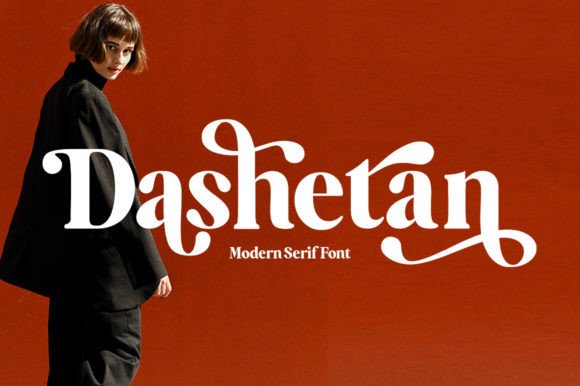
Introducing Dashetan Font: The Perfect Choice for Funeral Cards
Are you in search of a modern and fresh serif display font to add a touch of elegance to your projects? Look no further than Dashetan Font by BrandType. With its classy and stylish design, Dashetan is the ideal choice for a wide range of applications, especially funeral cards.
Dashetan Font combines the perfect balance of sophistication and simplicity, making it an excellent option for conveying heartfelt messages. Its sleek and modern look will captivate your audience, leaving a lasting impression on anyone who lays eyes on it.
But what sets Dashetan apart from other fonts? It's not just about its captivating aesthetics. This font is meticulously crafted to evoke emotions and create a meaningful connection with your audience. Every curve and stroke are carefully designed to express compassion, empathy, and serenity – essential qualities for funeral cards.
One of the most remarkable features of Dashetan Font is its versatility. Whether you're designing a funeral invitation, memorial booklet, or sympathy card, this font adapts effortlessly to any project. Its timeless appeal ensures that your message will be conveyed with utmost grace and sensitivity.
Not only does Dashetan Font deliver visually stunning results, but it also offers unparalleled convenience. Thanks to its PUA encoding, accessing all the glyphs and ligatures is a breeze. This means that you have complete freedom to customize and personalize your designs, creating truly unique and memorable funeral cards.
In a time of grief and remembrance, Dashetan Font provides solace and comfort through its elegant and soothing design. Its gentle curves and subtle details create an atmosphere of tranquility, allowing your words to convey empathy and support when they are needed most.
Remember, Dashetan Font is not just a typeface – it's a symbol of unity, strength, and the power to heal. Embrace its beauty and let it guide you in creating meaningful connections through your designs.